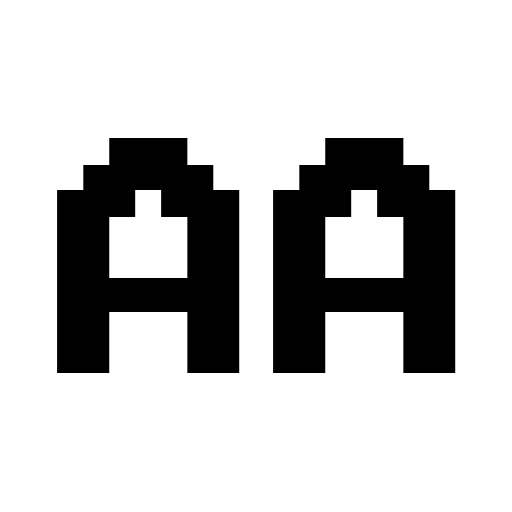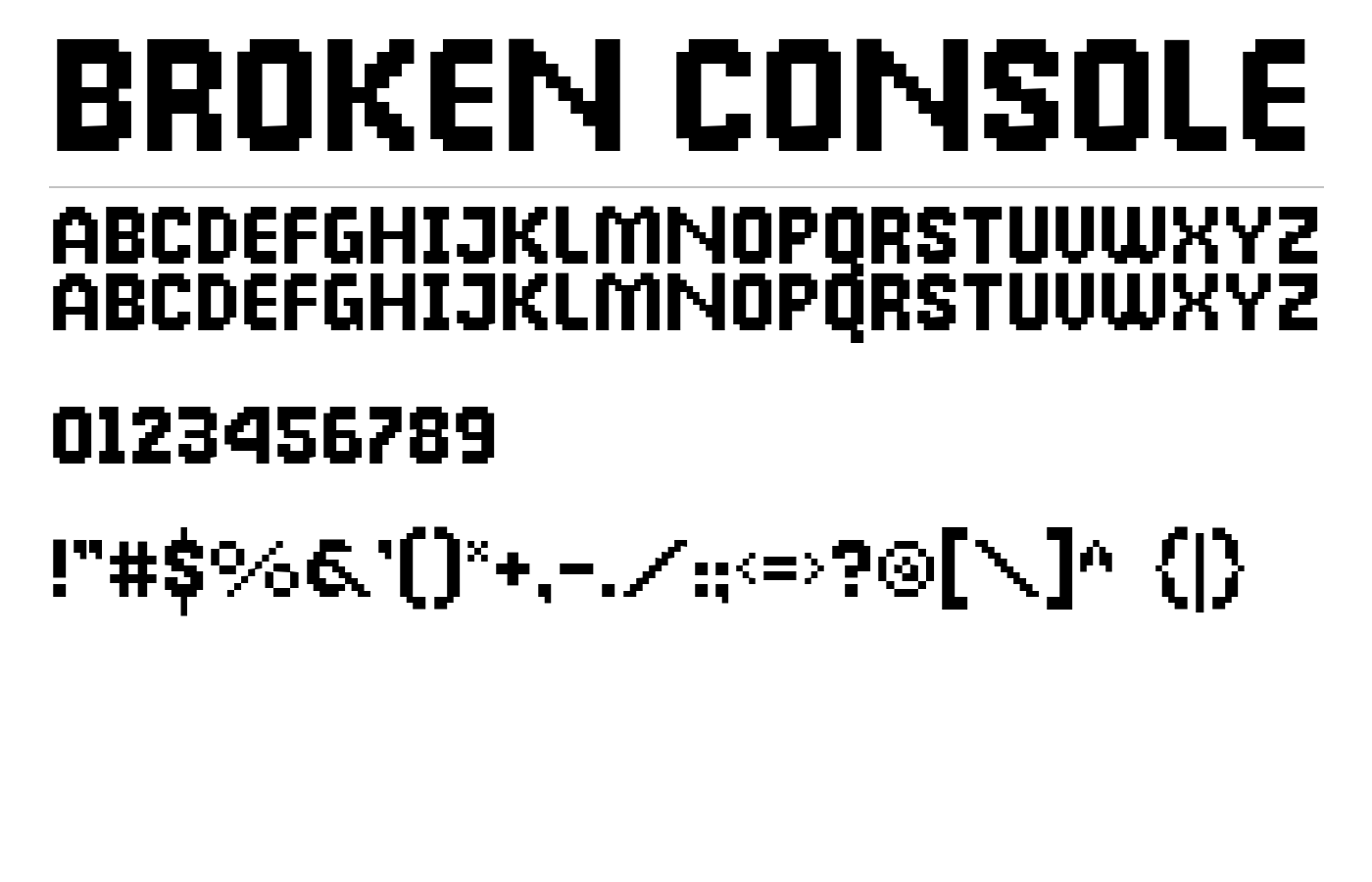
Broken Console Font is a bold, pixel-style sans serif typeface that evokes a retro digital or gaming aesthetic with its blocky, rigid letterforms and sharp, stepped edges. Its uniform stroke weight and square shapes combine to give a nostalgic yet tech-savvy feel, making it ideal for use in video game interfaces, tech branding, or any design seeking a vintage computer vibe. This font works best for headlines, logos, or display text where a strong, digital character is desired.
Broken Console Font
About Broken Console Font